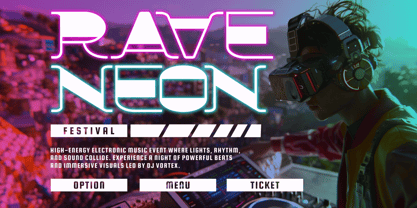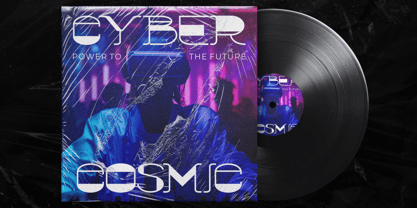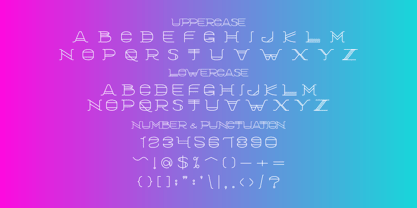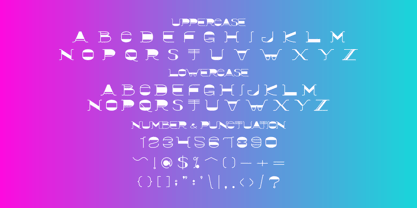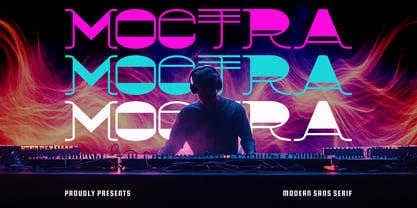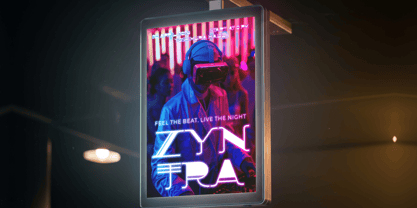
Moctra
by Shanaf
The Moctra Font Family was designed by Yesie Erma Yunita and published by Shanaf. Moctra contains 2 styles and family package options. More about this family
Moctra Electro Font brings a futuristic letter shape with wide geometry and sharp electronic rhythm. The characters mix solid forms, open cuts, and thin inline details. This contrast gives each word a strong visual pulse for music branding. Its uppercase design feels bold, digital, and energetic for logo concepts. The font suits DJ logos, music labels, club flyers, event posters, festival titles, and electronic ads. It also works for headline layouts that need movement, light, and nightlife energy.
The font carries a techno mood with sleek spacing and experimental construction. Its rounded corners soften the digital structure, while the straight cuts keep the design precise. Designers can use it for rave branding, neon party campaigns, cyber music covers, and dance event promotions. It also fits podcast covers, audio brand marks, sound studio identity, and entertainment posters. The character set supports uppercase, lowercase, numbers, punctuation, and multilingual projects, so brand systems can stay consistent.
Moctra Electro Font works beyond music events too. It fits gaming projects, virtual reality branding, tech startup logos, digital product campaigns, and futuristic poster design. The visual style can support night club identity, light show graphics, concert ads, and streaming cover art. Its readable structure helps titles stay clear across banners, screens, packaging, stickers, and magazine covers. Use it when a brand needs electronic energy, fast recognition, and a memorable logo direction.